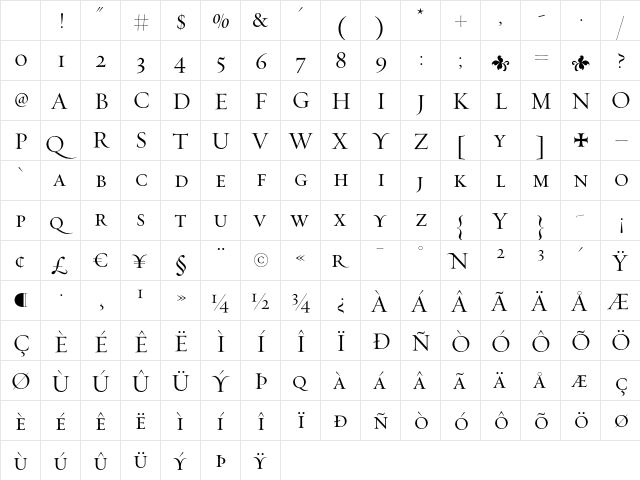
Complete Requiem Display-HTF-SmallCaps glyph index. Displaying only characters natively supported by Requiem Display-HTF-SmallCaps font.
Requiem is built around its visual character rather than neutral utility - its distinctive forms are designed to make an impression at display sizes.
Font Pairing: Pair with a clean neutral sans-serif for body copy to let Requiem's character lead without overwhelming the composition.
Pro Tip: Use Requiem exclusively at display sizes - it was designed to be seen, not read at length. Let a neutral companion handle body copy.